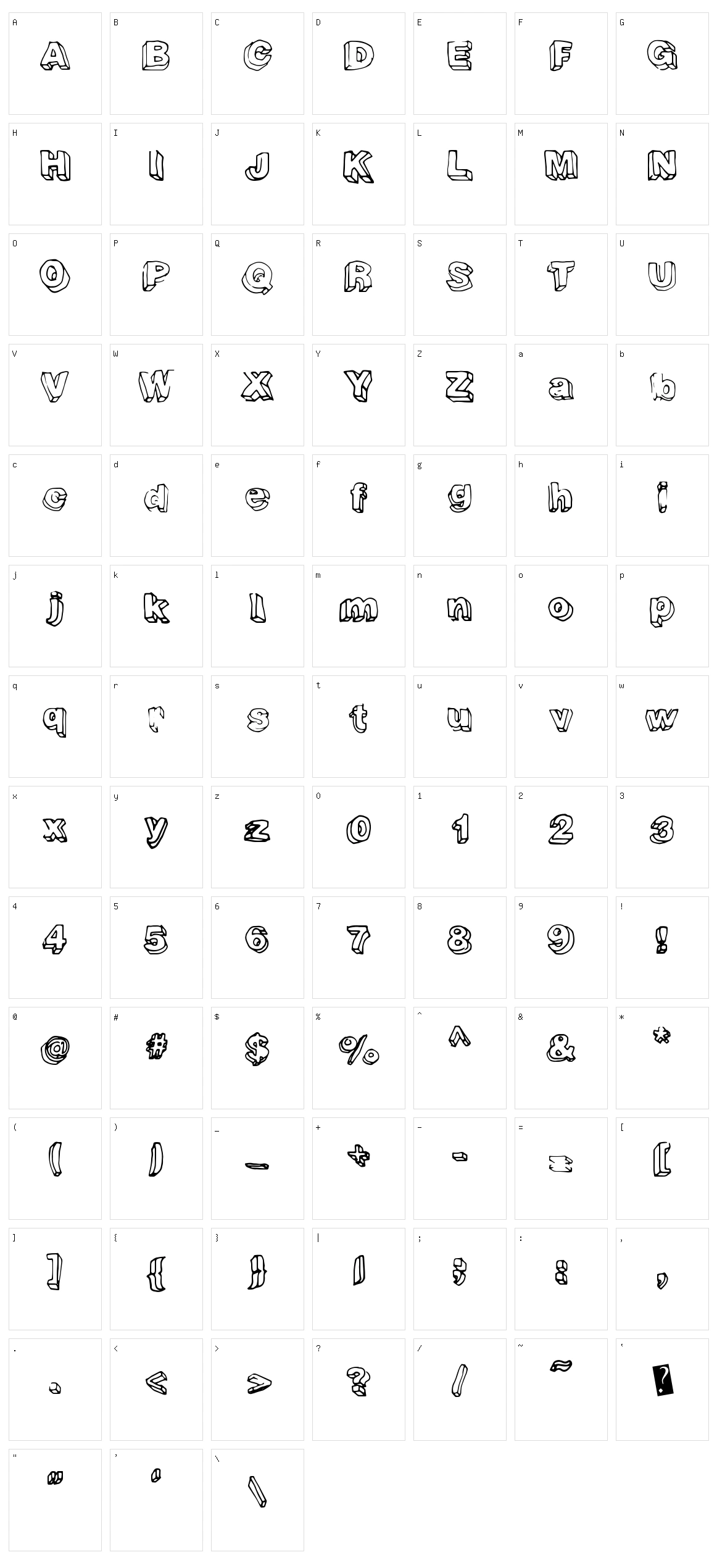
The free font Fourth Dimension is carefully designed by Xerographer Fonts, showcasing a thoughtful balance of creativity and usability and falls under the Cartoon font style. When you download the ZIP file, it contains only 64.49 KB of font files, making it lightweight and quick to download. Please review the license details below to understand permitted usage and distribution rights. If license information is not available, we recommend using this font for personal projects only or contacting the author directly for commercial usage permissions.